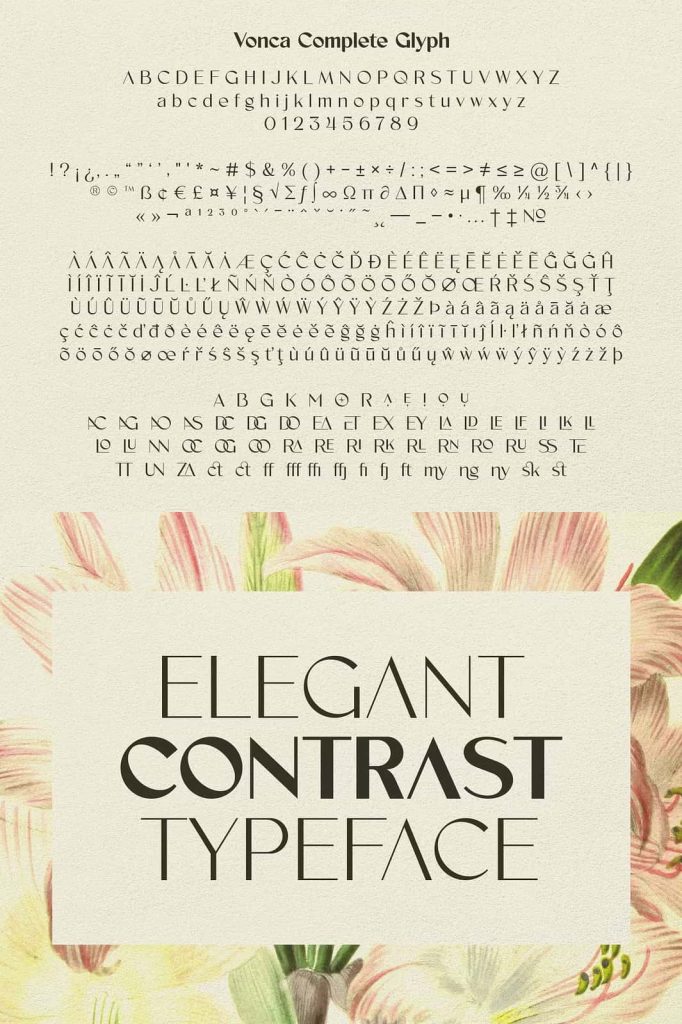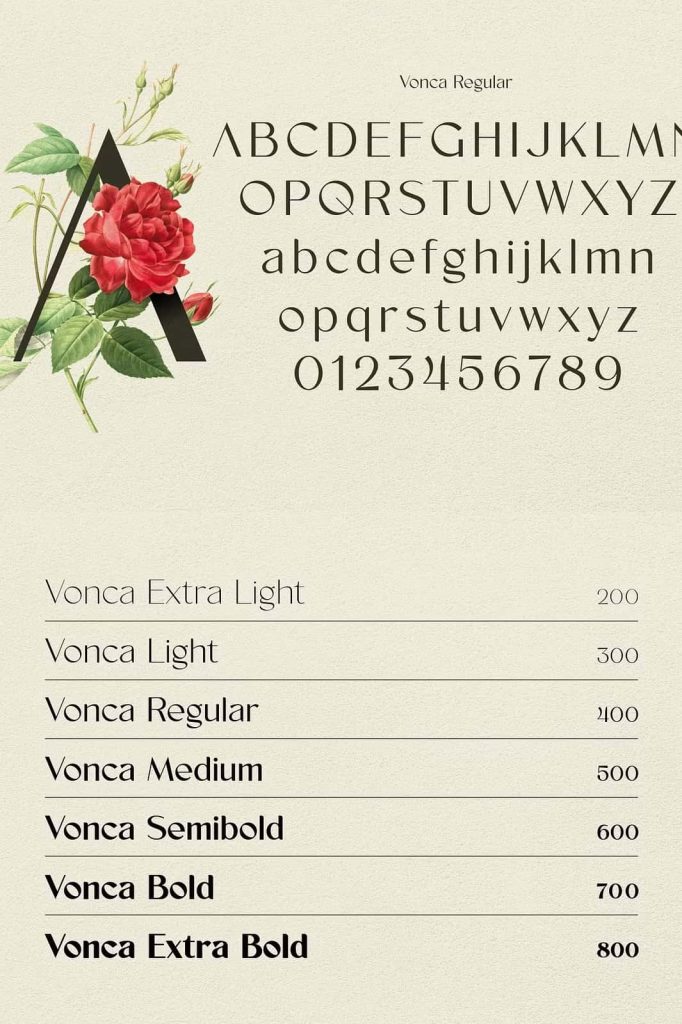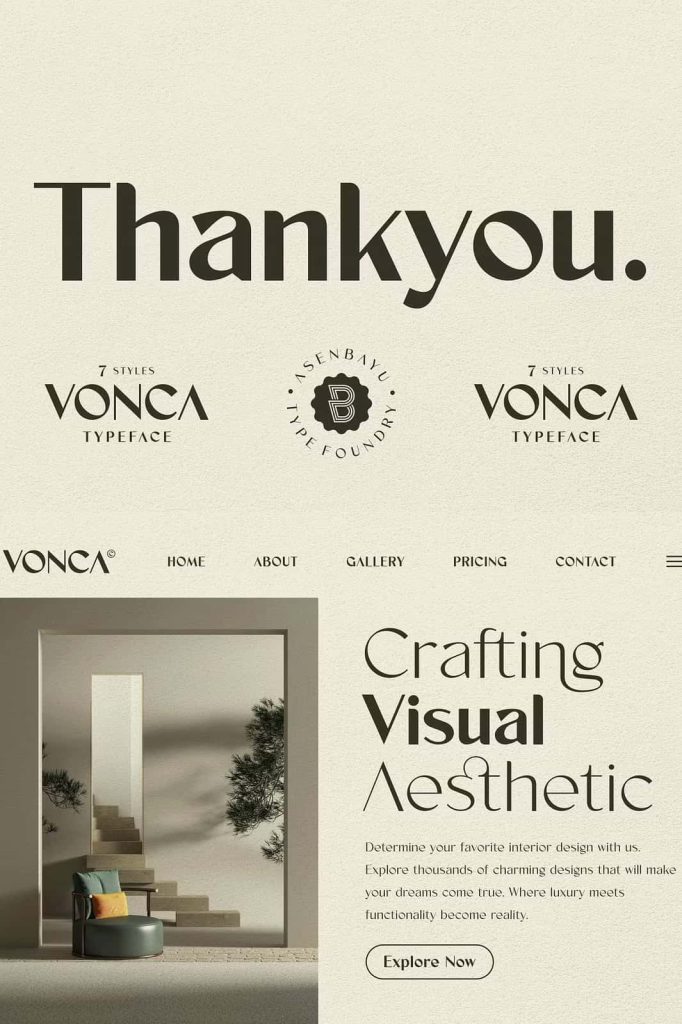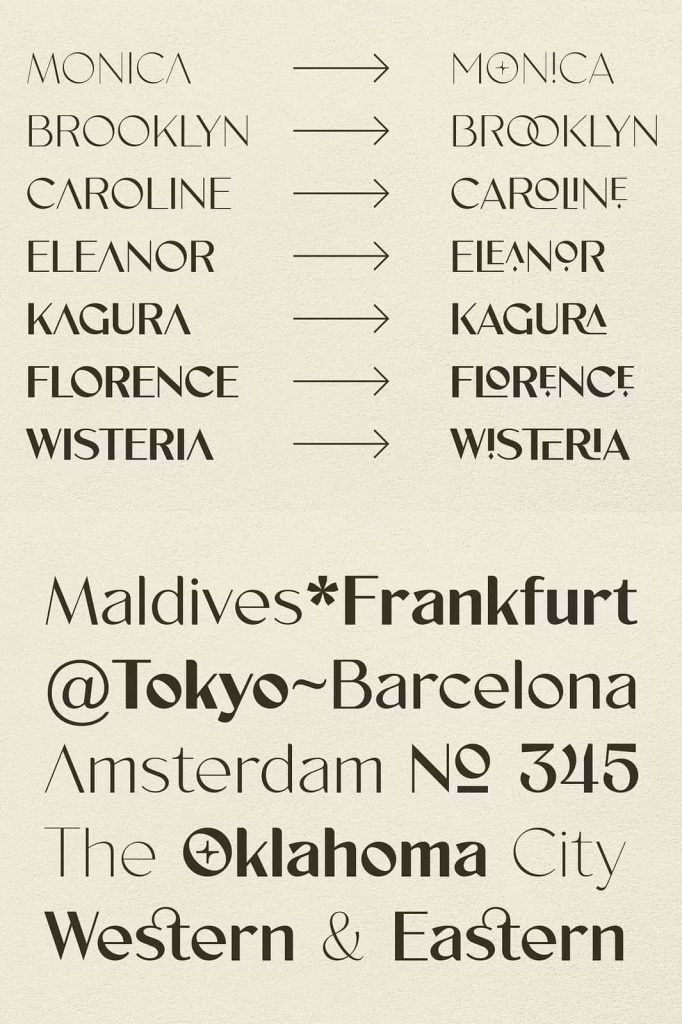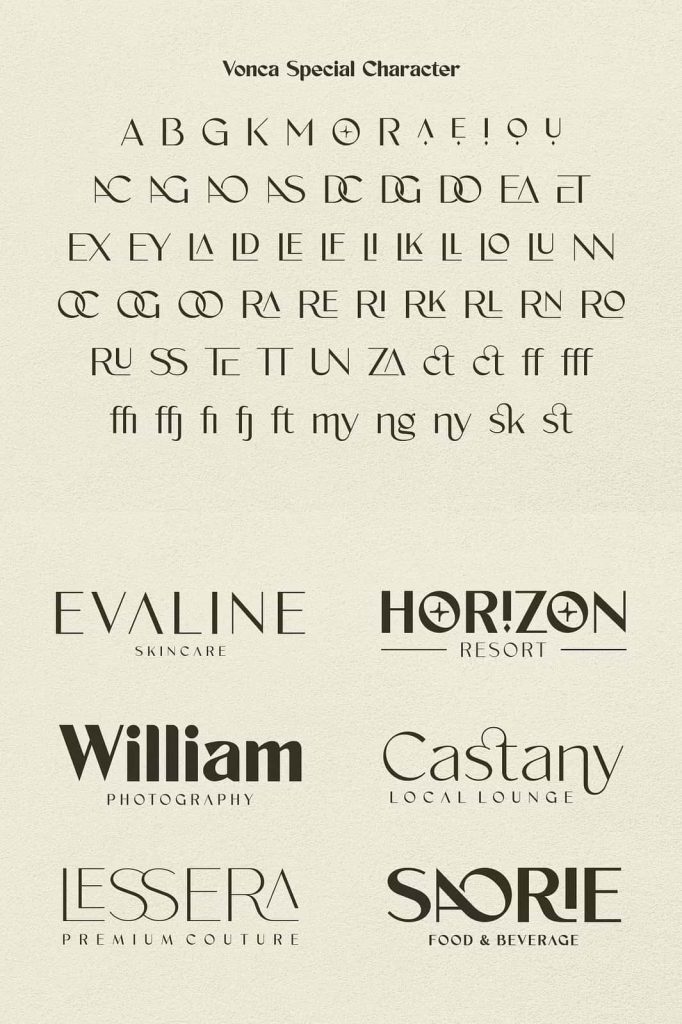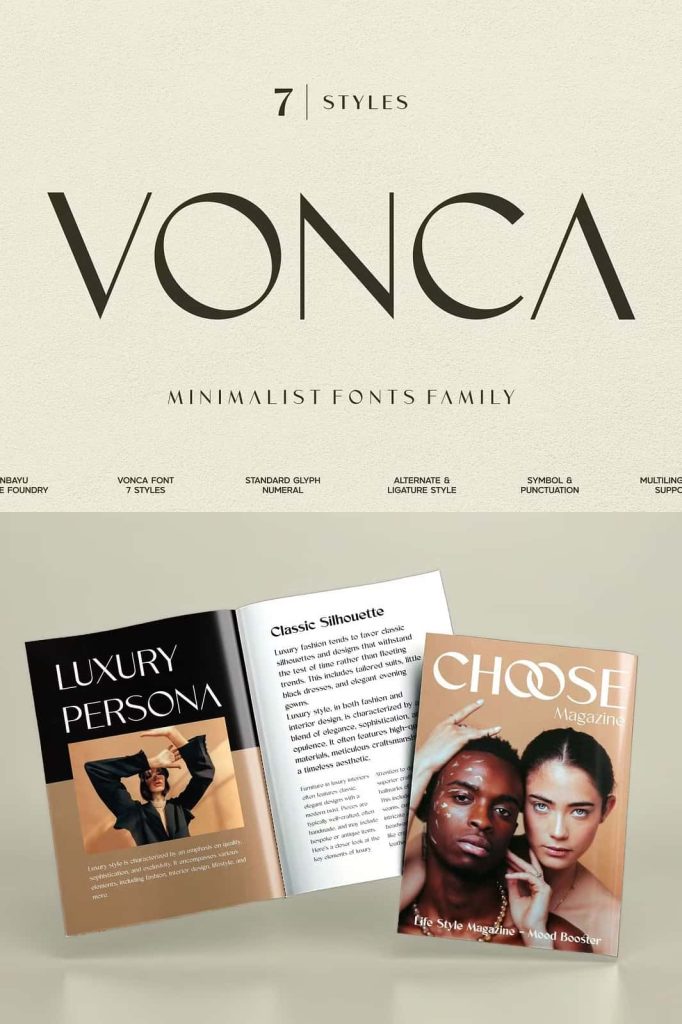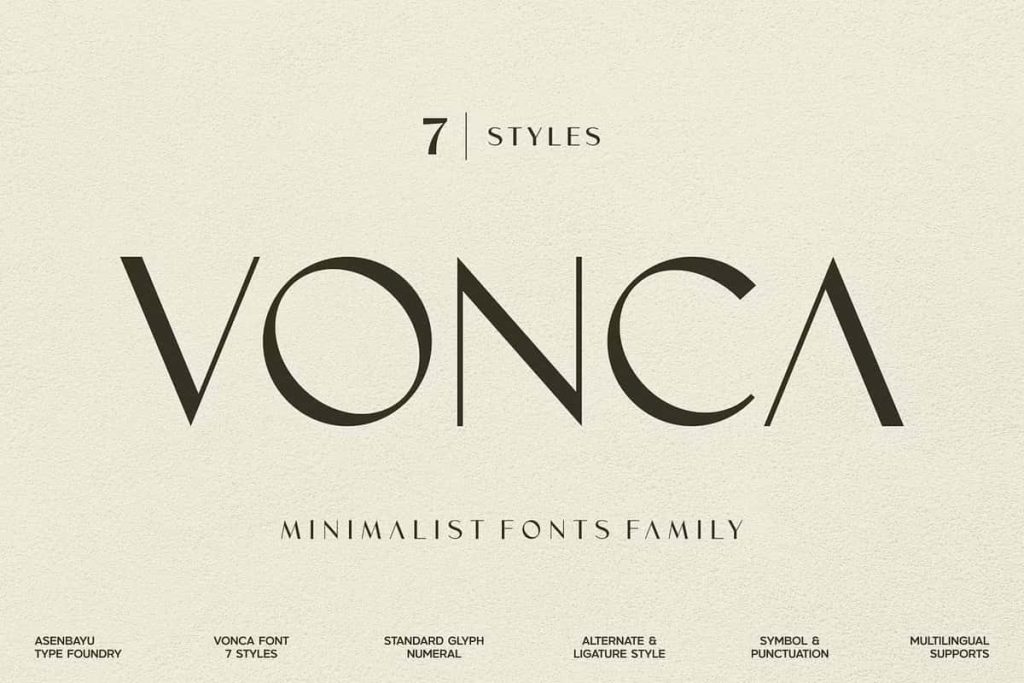
Vonca Font Family
Vonca: A Modern Minimalist Font Family for Clean and Contemporary Design
Vonca is a modern minimalist font family that embodies simplicity, elegance, and contemporary design principles. It strips away unnecessary ornamentation and focuses on clarity, balance, and precision. Every letterform reflects thoughtful structure and intentional spacing, resulting in a sleek and efficient visual aesthetic.
Designed for creatives who value refinement and versatility, Vonca delivers strong visual impact without overwhelming the composition. It communicates professionalism while maintaining a subtle artistic character. Whether you build a bold brand identity or craft understated packaging, Vonca adapts with confidence.
Clean Lines and Geometric Precision
Vonca emphasizes clean lines and geometric shapes. Each character follows a balanced construction that feels stable and harmonious. Straight strokes align with precision, while curved elements maintain smooth, controlled arcs. This combination produces a modern look rooted in clarity and order.
The geometric foundation strengthens consistency across all weights and styles within the family. Letters align seamlessly, allowing designers to create structured layouts with clear visual hierarchy. Vonca enhances readability while maintaining a refined aesthetic.
Minimalism with Purpose
Minimalist design requires intention. Vonca does not rely on decorative elements to stand out. Instead, it uses proportion, spacing, and alignment to create impact. This disciplined approach ensures that your message remains the focus.
The simplicity of Vonca makes it adaptable to multiple industries. It feels natural in tech startups, fashion brands, architecture studios, and lifestyle businesses. Its restrained style communicates confidence and modernity.
Versatile for Modern and Vintage Concepts
Although Vonca leans toward contemporary design, it transitions smoothly into vintage-inspired projects. Pair it with muted color palettes, textured backgrounds, or retro imagery to achieve a timeless aesthetic. The clean structure provides a stable base for creative experimentation.
This flexibility allows designers to move between sleek modern branding and nostalgic design themes without switching typefaces. Vonca bridges eras while maintaining visual coherence.
Create Strong Visual Identity Systems
Vonca performs exceptionally well in brand identity systems. Its geometric clarity supports consistent logo construction and typography guidelines. Designers can establish hierarchy by adjusting weight, size, and spacing while maintaining a unified look.
The font’s minimalist character strengthens brand recognition. It communicates clarity, focus, and intentional design decisions, which are essential in competitive markets.
Perfect for Packaging, Logos, and Posters
Vonca excels in packaging and label design. Its clean forms enhance product visibility and readability, especially in trendy and modern packaging concepts. The geometric letterforms create bold yet refined titles that stand out on shelves.
Use Vonca for:
• Trendy packaging label designs
• Unique and modern logos
• Comprehensive branding systems
• Poster and promotional materials
• Fashion campaigns and lookbooks
• Website headers and digital interfaces
The font adapts to both large-scale headlines and smaller text elements. Its clarity ensures that even minimal layouts maintain strong presence and structure.
Enhance Fashion and Lifestyle Branding
Fashion and lifestyle industries demand typography that feels both modern and expressive. Vonca delivers this balance effortlessly. Its minimalist geometry complements bold photography and striking color palettes often used in fashion campaigns.
Designers can use Vonca to create sleek magazine covers, runway invitations, and brand lookbooks. The font enhances elegance without distracting from visual storytelling.
Optimized for Print and Digital Platforms
Vonca maintains clarity across print and digital environments. In print, its clean edges reproduce sharply on paper, labels, and large-format posters. On screens, the geometric forms ensure crisp readability and consistent appearance across devices.
This reliability makes Vonca a strong foundation for responsive websites, social media graphics, and digital advertising campaigns.
Why Choose Vonca for Your Design Projects?
Vonca offers a powerful blend of minimalism and versatility. It emphasizes clean geometry, balanced proportions, and contemporary style. At the same time, it adapts to vintage-inspired layouts and creative branding directions.
Choose Vonca when you want to:
• Build a sleek and modern brand identity
• Create trendy packaging label designs
• Design unique logos with geometric precision
• Develop strong poster and promotional layouts
• Maintain consistent typography across platforms
Vonca stands as a dependable modern minimalist font family that supports both creative exploration and structured design systems. Its clean lines and geometric shapes establish clarity and elegance in every project. When you aim to communicate simplicity with strength, Vonca delivers refined impact and contemporary appeal.